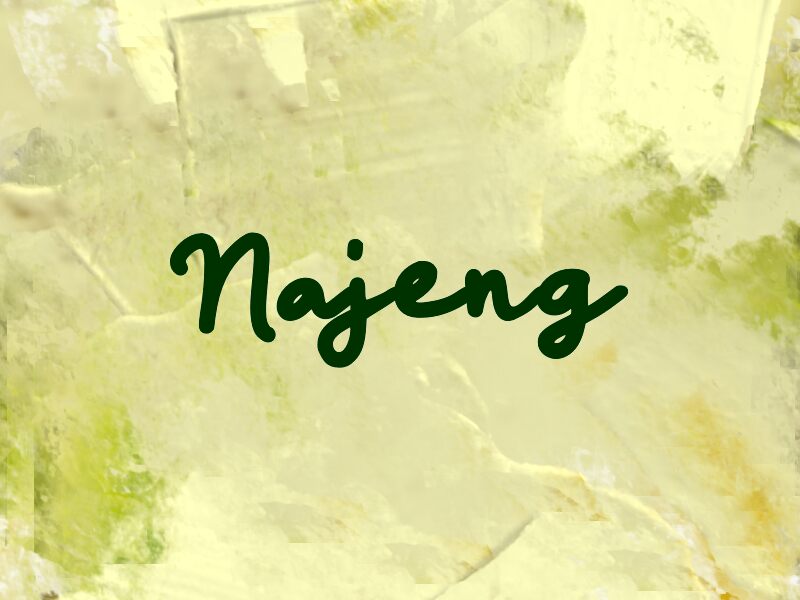
Najeng font, designed by wep, is a free font ideal for adding an informal touch to your project. It is smooth and casual, modern and approachable, friendly and organic. Informality gives it an authentic relaxed appeal, allowing it to feel laidback and fun. Its natural feel will definitely improve how your message communicates with its readers.
Use it in resume typography, invitation cards, letterhead typography, blog writing, and more. Use it in typographic logo and app name designs, brand name design, clothing label typography, book cover title, CD cover design, video thumbnails, and more.
Najeng is a stunning free font that combines elegance and modernity, making it perfect for various design projects. Whether you're working on a website, an advertisement, or a personal project, this font can elevate your work with its sleek lines and stylish appearance.
With its versatile design, Najeng is suitable for both headlines and body text, ensuring readability while making a strong visual impact. It is available for easy font download, allowing you to incorporate it into your creative endeavors effortlessly.